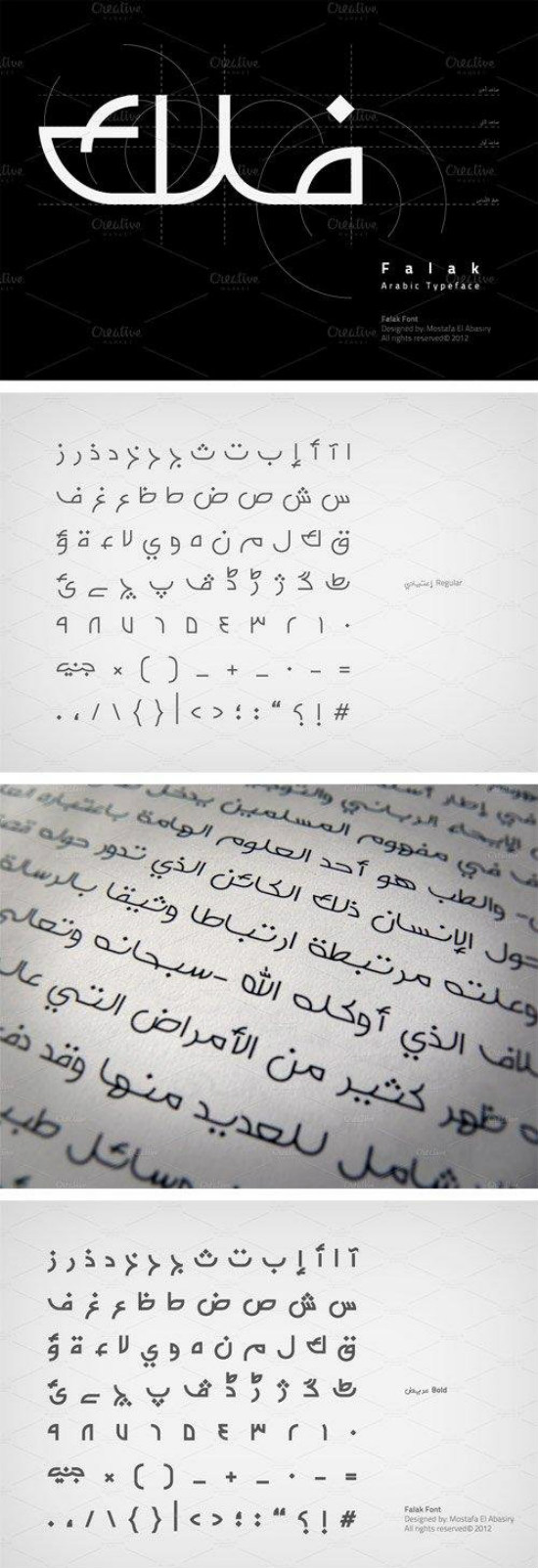
Falak Font
Falak is an Arabic typeface inspired by the theme of Astronomy and natural science and that is reflected on the orbital curvatures given to most of the letters in addition to the spatial proportions of the typeface anatomy.